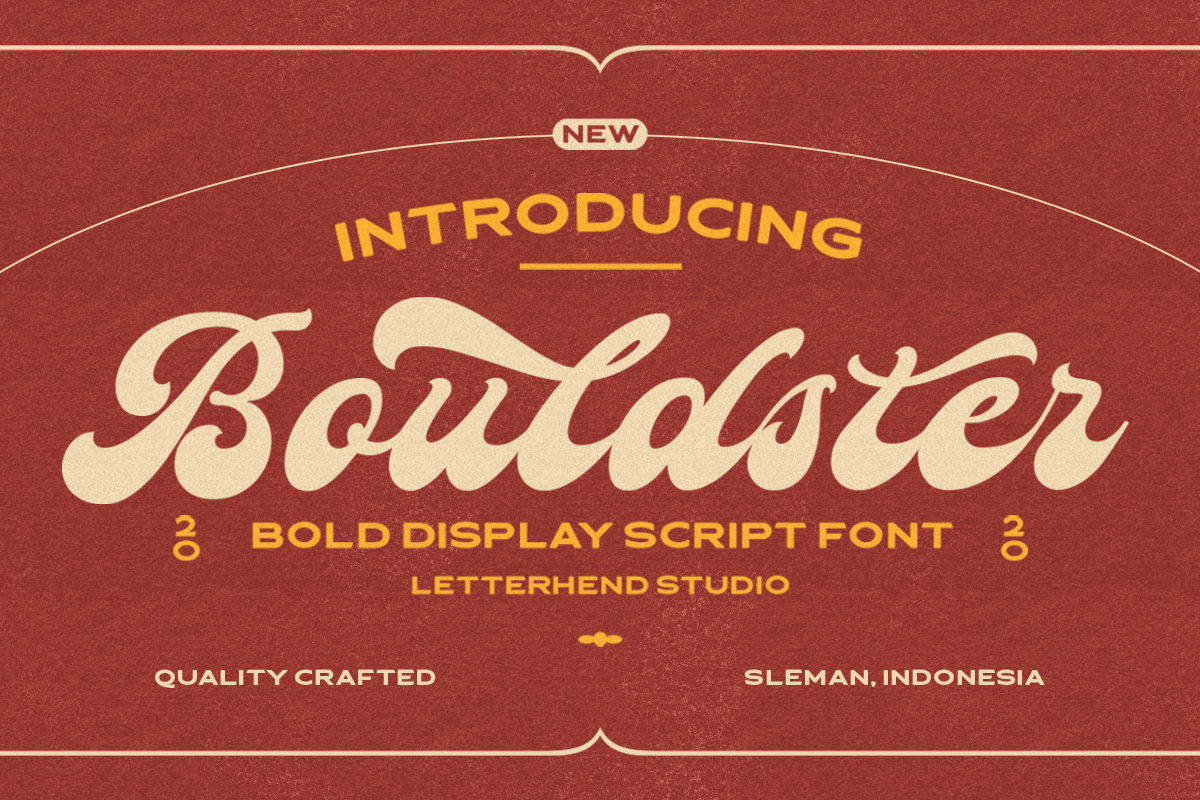
Bouldster Font
Bouldster Font is widely used in outdoor adventure branding, extreme sports marketing, mountain climbing gear packaging, wilderness expedition logos, rugged outdoor clothing labels, adventure tourism materials, survival equipment designs, and bold headline applications.
Bouldster Font is an exciting typeface that captures the untamed spirit of outdoor adventure with its robust design and mountainous character. This font embodies strength, endurance, and natural resilience, making it perfect for brands that want to convey durability, outdoor expertise, and adventurous spirit in their rugged visual communications.
The Bouldster Font family includes Regular, Bold, Light, Italic, Condensed, Extended, Rough, and Weathered variants. This adventurous collection provides designers with multiple expressions of outdoor authenticity to match different wilderness themes and extreme activity applications.
Bouldster Font Free Download delivers exceptional outdoor credibility for designers working with adventure and extreme sports brands. The font's sturdy appearance and resilient character create an immediate sense of reliability and wilderness expertise. This typeface excels in projects where toughness, adventure, and natural authenticity must inspire confidence in challenging outdoor environments.
The distinctive strength of Bouldster Font lies in its ability to convey the solid reliability of mountain rock and the bold spirit of outdoor exploration. Each letterform has been crafted to suggest the weathered surfaces and natural textures found in rugged landscapes. The font's substantial weight and grounded proportions create visual stability that mirrors the dependable nature of quality outdoor equipment.
Adventure companies and outdoor gear manufacturers choose Bouldster Font for its power to communicate durability and authentic outdoor experience. The typeface works exceptionally well in camping equipment branding, hiking trail signage, outdoor festival promotions, and adventure travel communications. Its rugged aesthetic appeals to outdoor enthusiasts who value genuine wilderness experience and reliable performance equipment.
The mountaineering craftsmanship of Bouldster Font includes weather-resistant character variations and organic textures that enhance the handcrafted quality essential to outdoor authenticity. These rugged features ensure that text maintains the substantial presence and natural character that defines legitimate outdoor culture while meeting professional standards for commercial adventure industry applications.